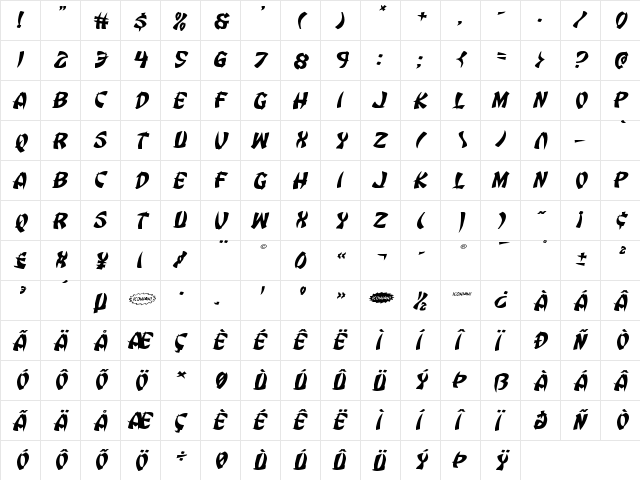
Egg Roll Expanded Italic Expanded Italic
Design Context for Egg Roll Expanded Italic Typeface
Egg Roll Expanded Italic is a composed and adaptable typeface that performs quietly and consistently across a wide range of design contexts. The slanted form adds forward momentum and visual energy.
Pro Tip: Try Egg Roll Expanded Italic for annotation and caption copy alongside an upright companion — the contrast in angle creates a dynamic but ordered typographic system.